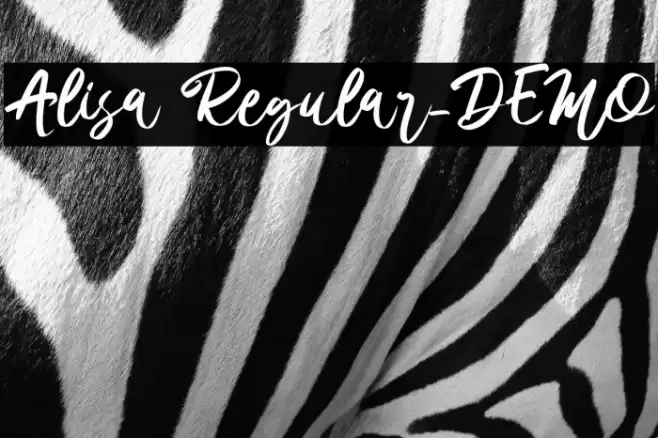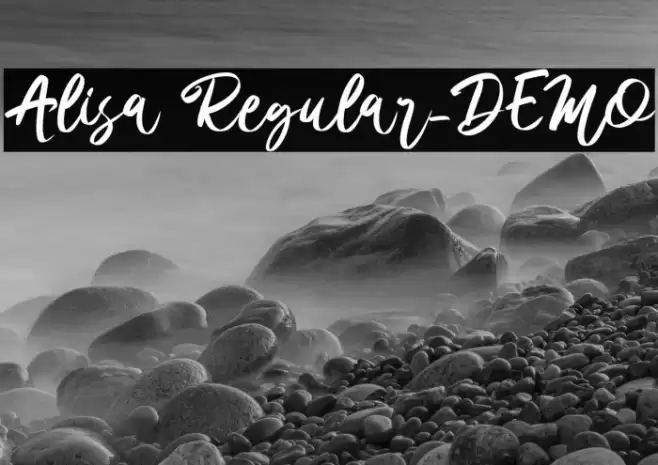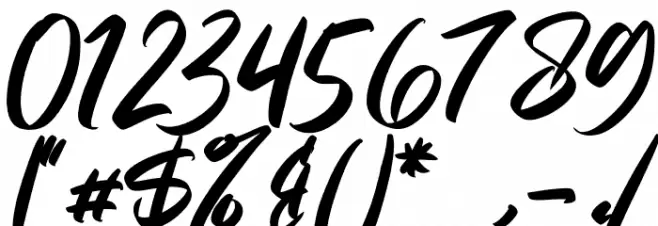
Alisa Regular_DEMO Font
Alisa Regular_DEMO Description
This font exhibits a dynamic and expressive style, characterized by its fluid, cursive script that mimics the natural flow of handwriting. The letters are interconnected with smooth, sweeping strokes, giving it a lively and personal touch. The uppercase letters are bold and slightly slanted, while the lowercase letters maintain a consistent flow, enhancing readability. Numbers and special characters are crafted with the same attention to detail, ensuring uniformity across the typeface. The overall appearance is both elegant and casual, making it suitable for a variety of creative applications.
A dynamic, cursive script font with a lively, handwritten style from Uncategorized fonts.
- Proposed Projects: Ideal for wedding invitations, greeting cards, branding, and social media graphics.
- Use Case: Logos, Headlines, Invitations